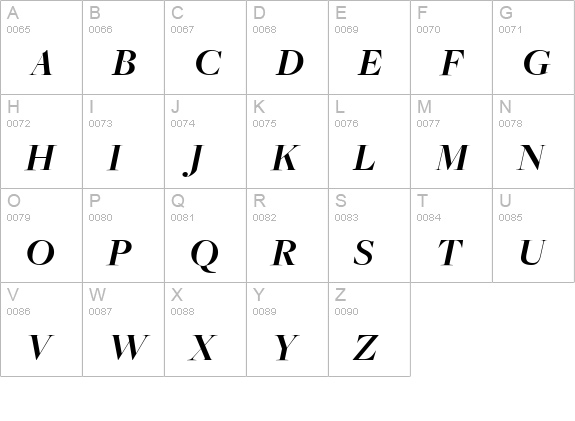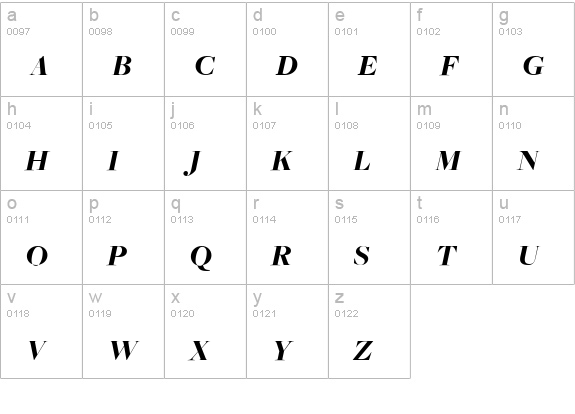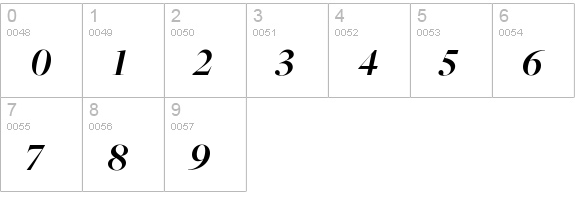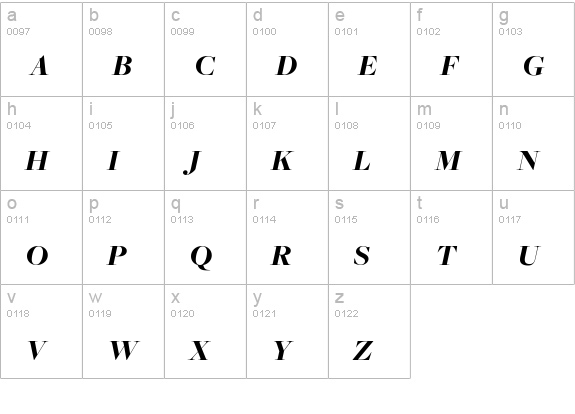
FreightBigBoldItalicSC Font Details
Introducing FreightBigBoldItalicSC font, a bold and eye-catching typeface that commands attention with its distinctive style. This unique font is perfect for making a statement and adding a touch of sophistication to your projects. The italicized design adds a touch of elegance, while the bold weight ensures maximum impact. But the best part? FreightBigBoldItalicSC font is completely free to download at FontsMarket.com. This means you can elevate your designs without having to spend a dime. Whether you're creating posters, banners, or social media graphics, this font will help you stand out from the crowd. Don't miss out on this opportunity to add a touch of flair to your projects with FreightBigBoldItalicSC font. Download it now and let your creativity shine!